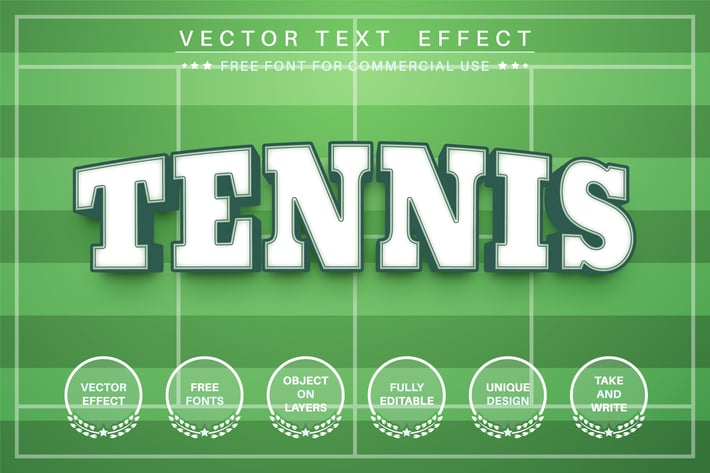
Tennis sport - editable text effect, font style
Hello! I'm happy to introduce my new text effect "3D stone". Just write your word and the effect will apply! Be as creative as you like to be in expressing yourself using this unique “3D stone”. Effect is perfect for any project that needs a unique handy touch whatever else your imagination leads you to!